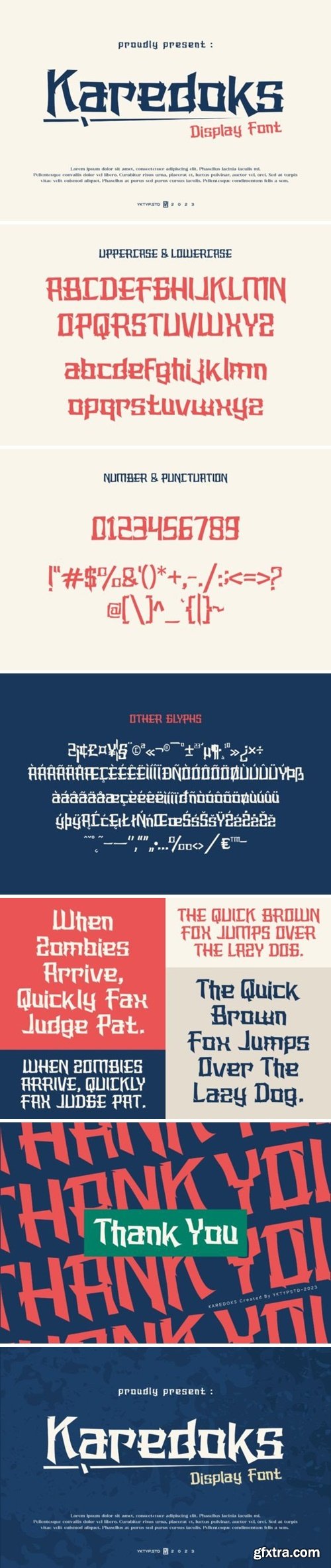
“Karedoks” is a font with a touch of Japanese style. “Karedoks” is suitable for posters, banners, stickers, clothing, merchandise, logos, film titles, labels, magazines, packaging and much more! both for print and digital media needs.